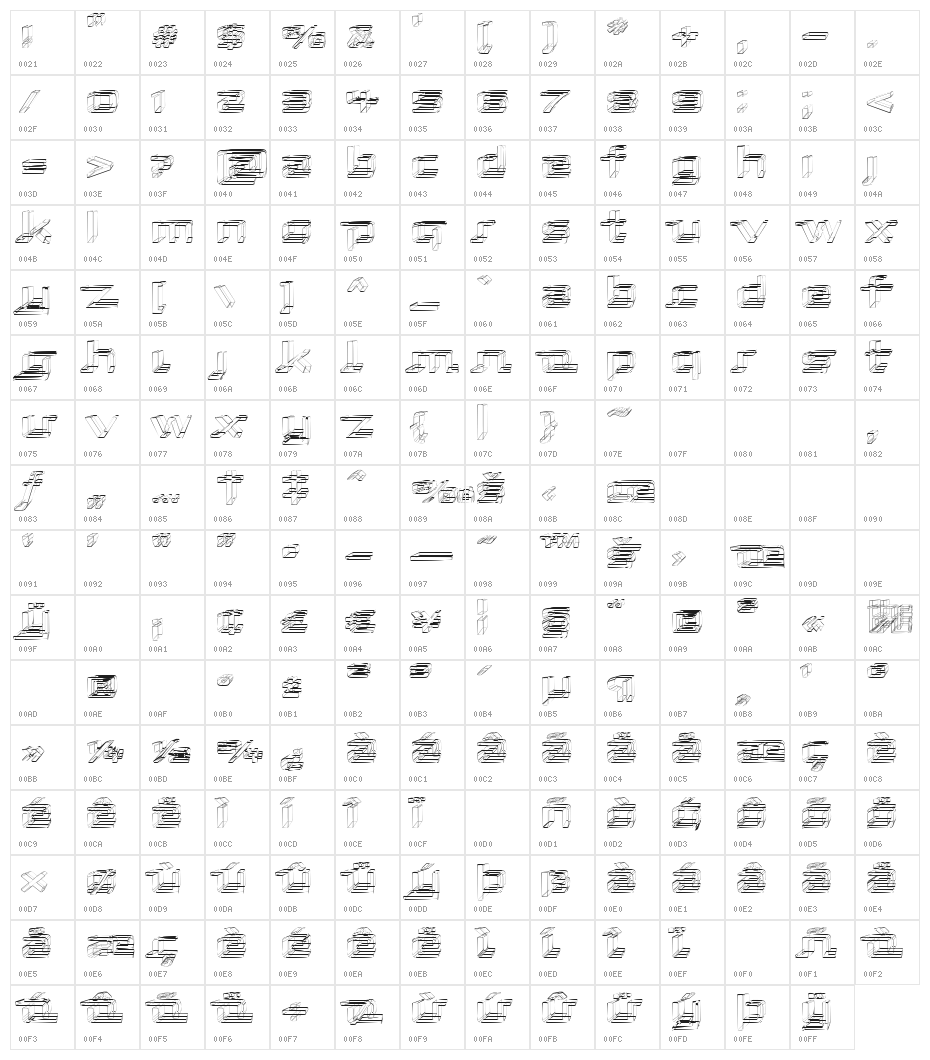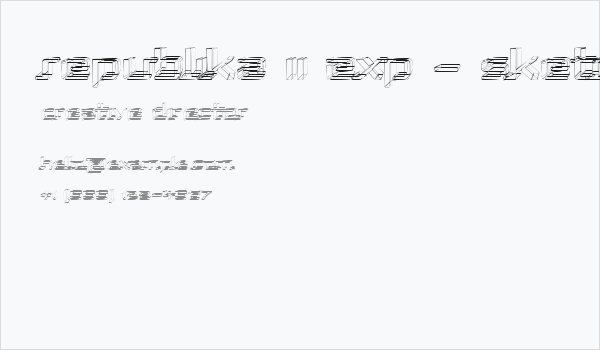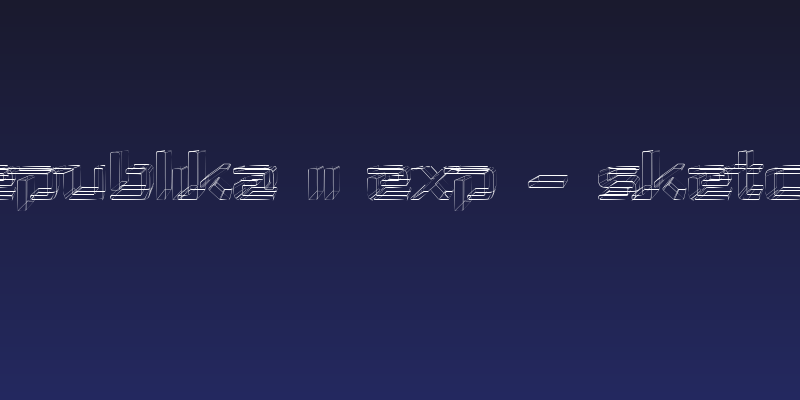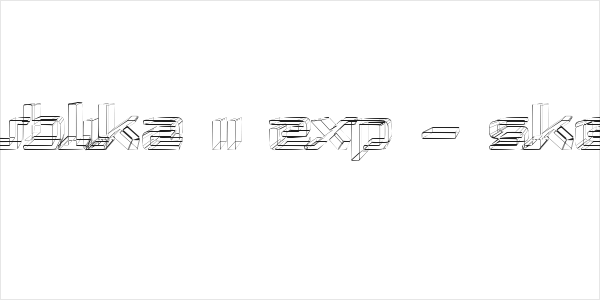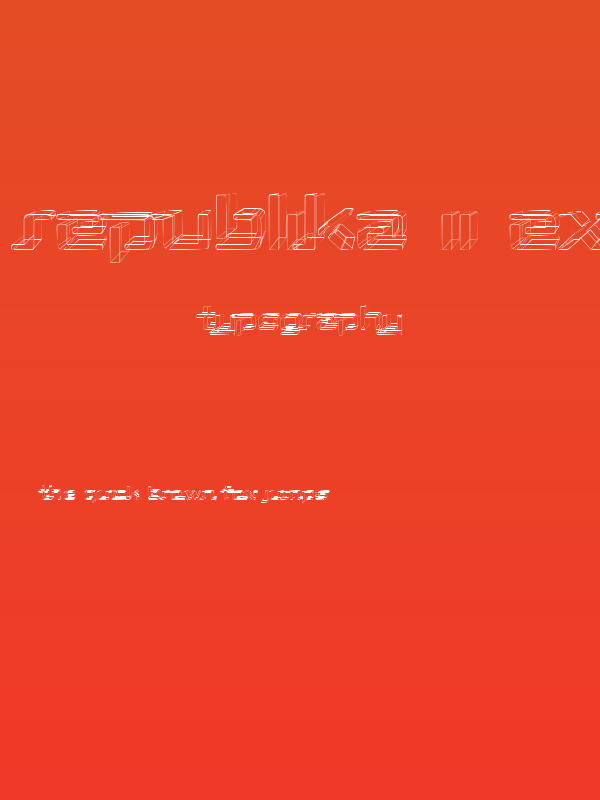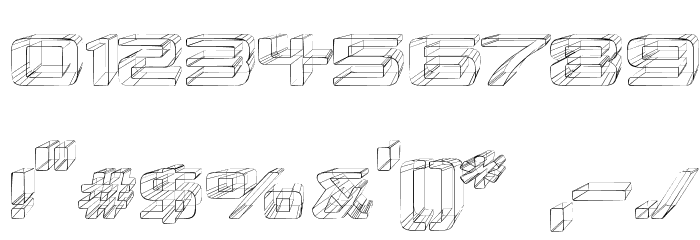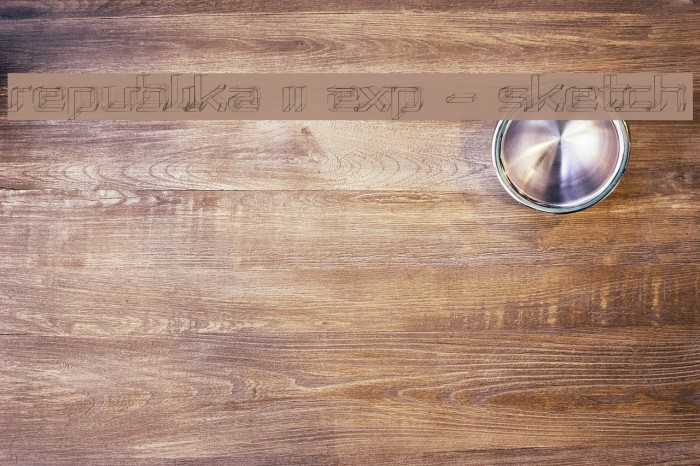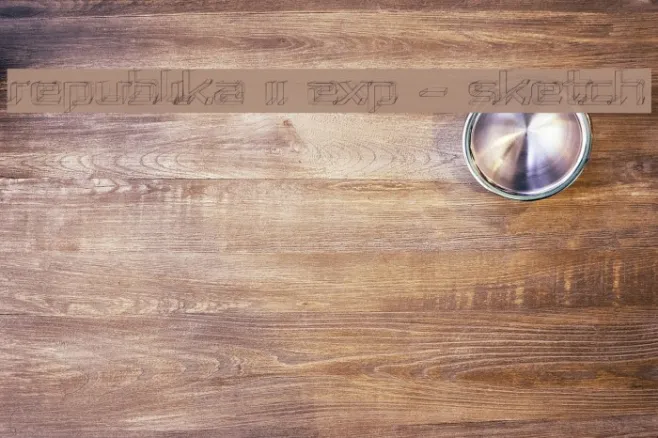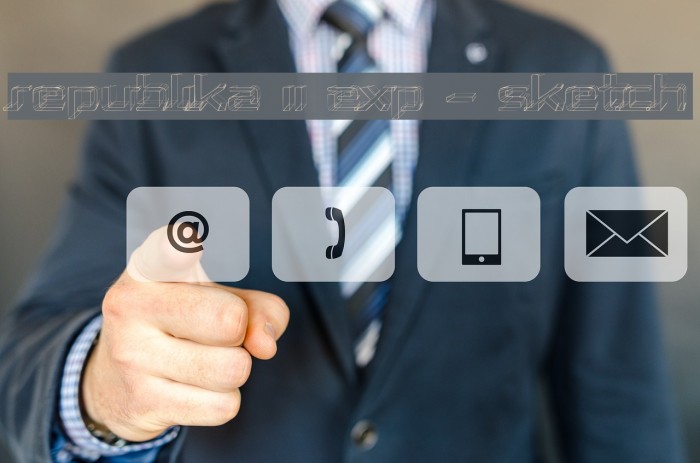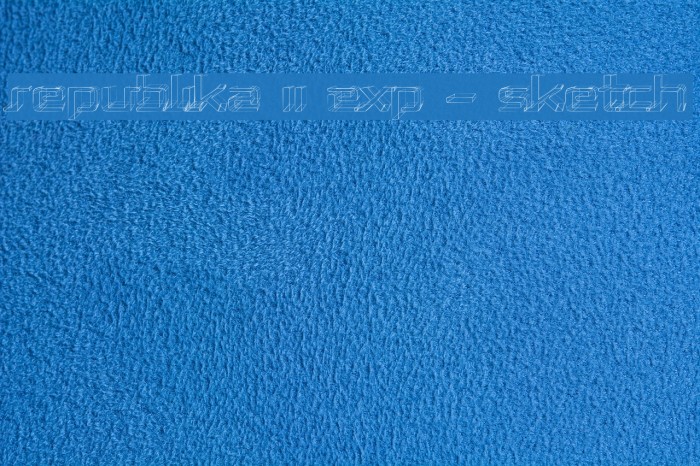
Republika II Exp - Sketch Font
Republika II Exp - Sketch Description
This font features a unique, sketch-like design with a three-dimensional appearance. Each character is constructed with overlapping lines, creating a complex and intricate look. The style is geometric and angular, with a futuristic feel that is both bold and eye-catching. The uppercase and lowercase letters maintain a consistent style, while the numerals and special characters follow the same design principles, ensuring uniformity across the typeface. The font's distinct appearance makes it ideal for creative and modern projects that require a standout typographic element.
| Proposed Projects | Ideal for branding, posters, album covers, and digital artwork where a bold and modern aesthetic is desired. |